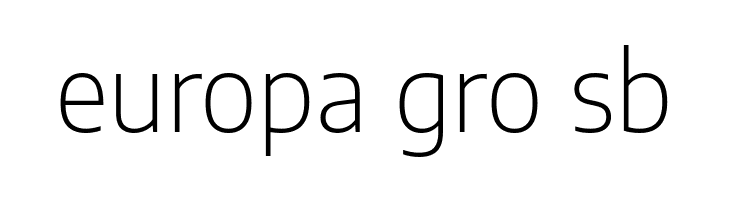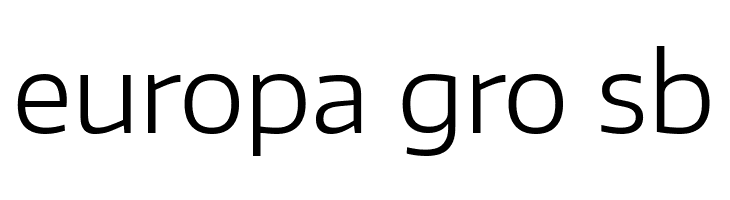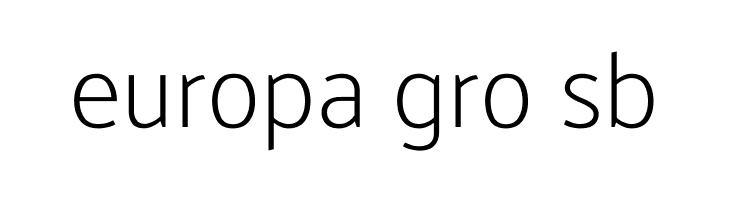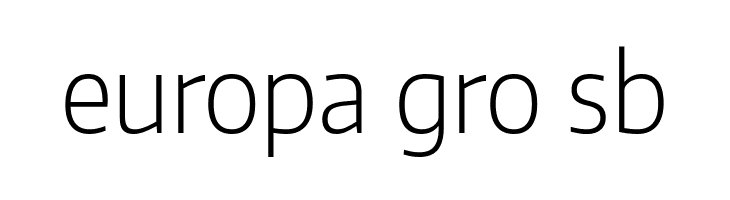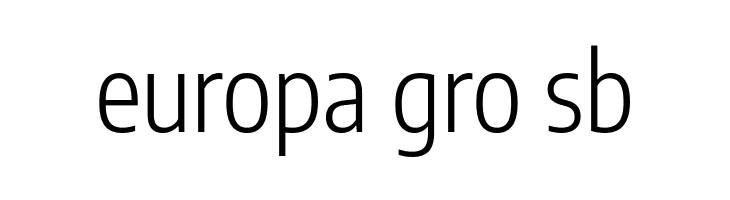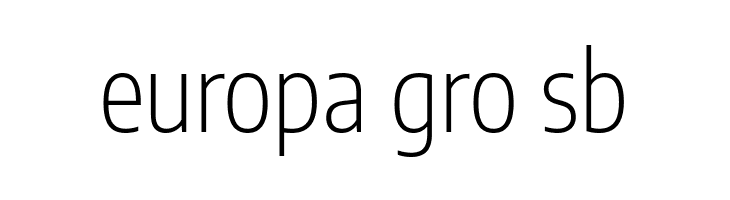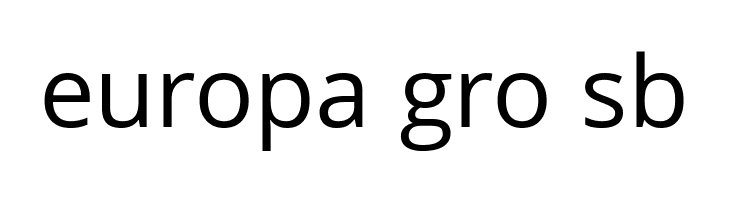
A modern, extra light sans-serif font with clean lines and minimalistic design.
A modern, wide sans-serif font with a light, minimalist style.
A modern, thin sans-serif font with clean lines and balanced spacing.
A modern, narrow sans-serif font with an extra light weight and sleek design.
A modern, condensed sans-serif font with a light weight and clean design.
A modern, condensed sans-serif font with an extra light weight and tight spacing.
A modern, thin, and condensed sans-serif font with a clean and minimalist design.
A modern, clean sans-serif font with uniform strokes and excellent readability.